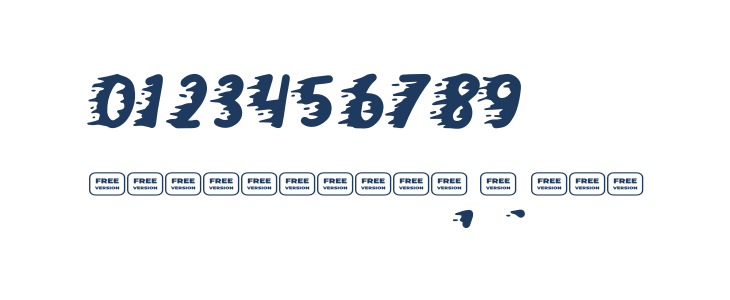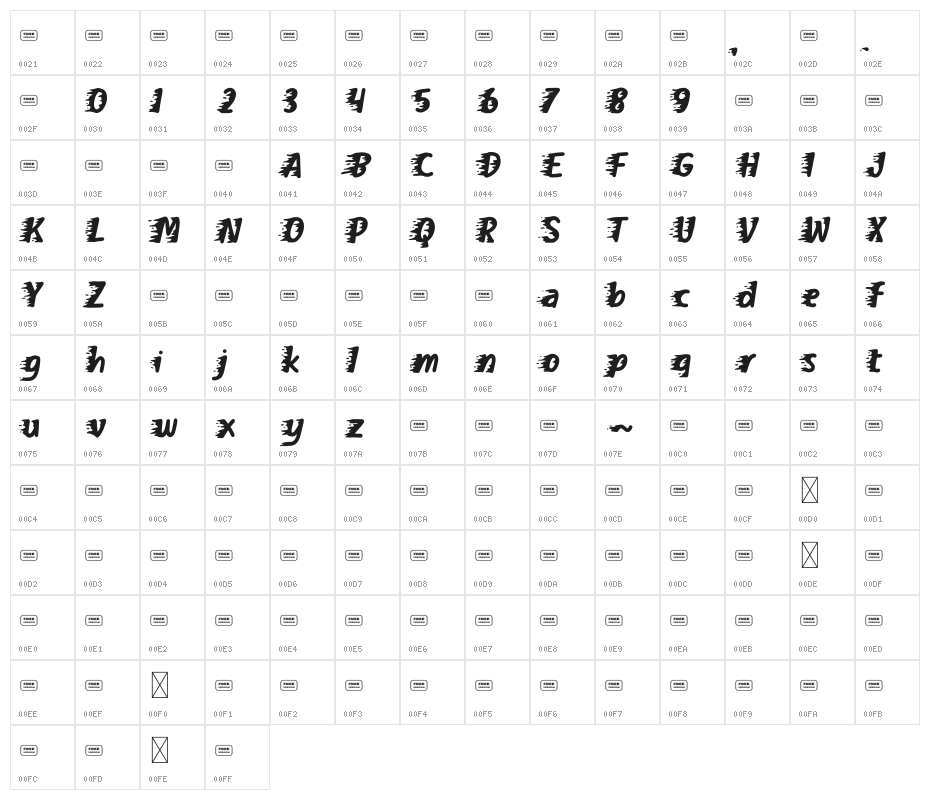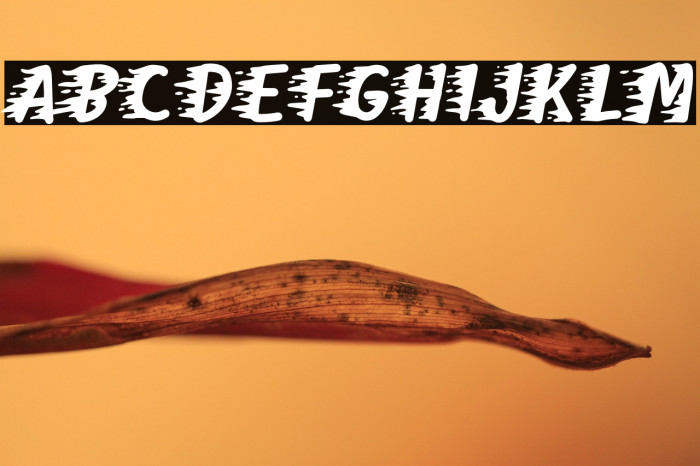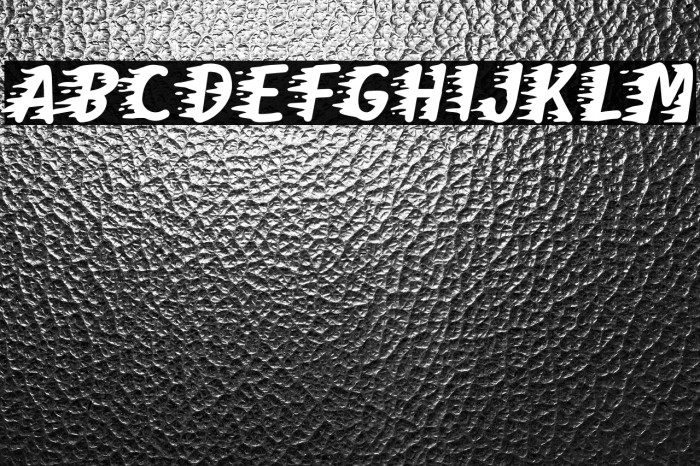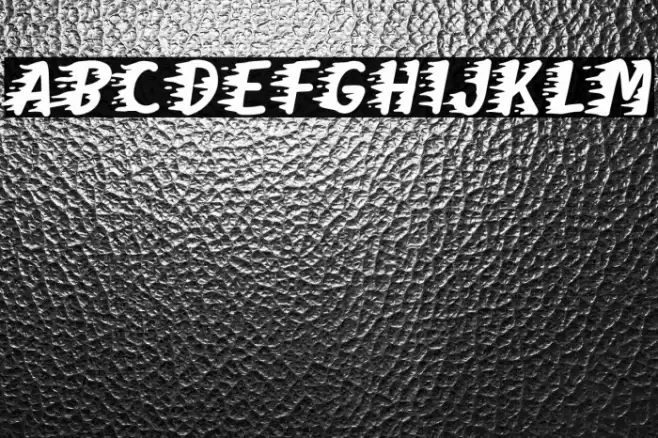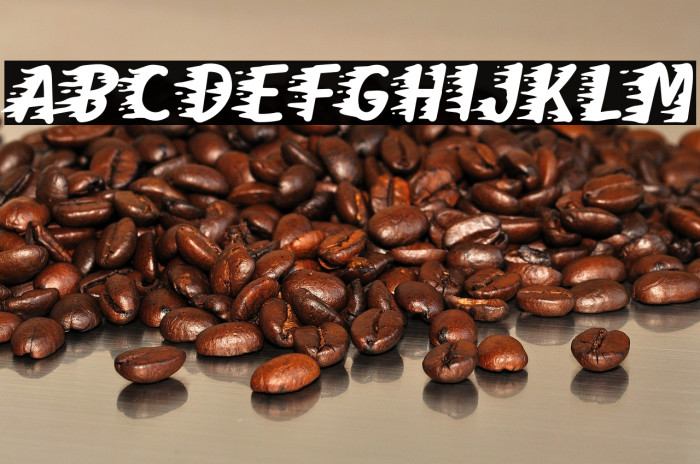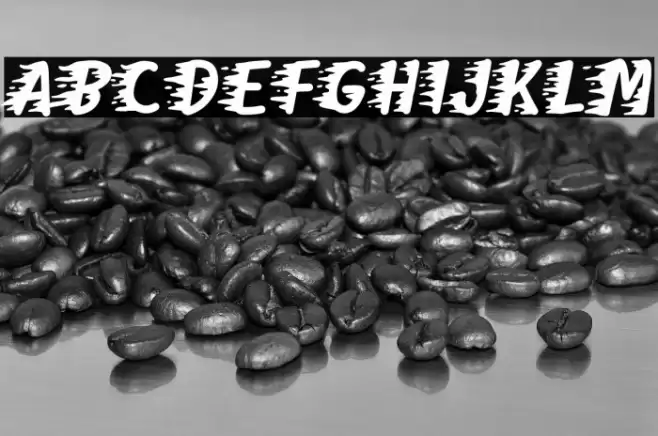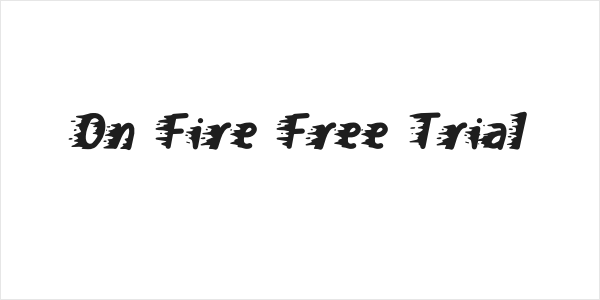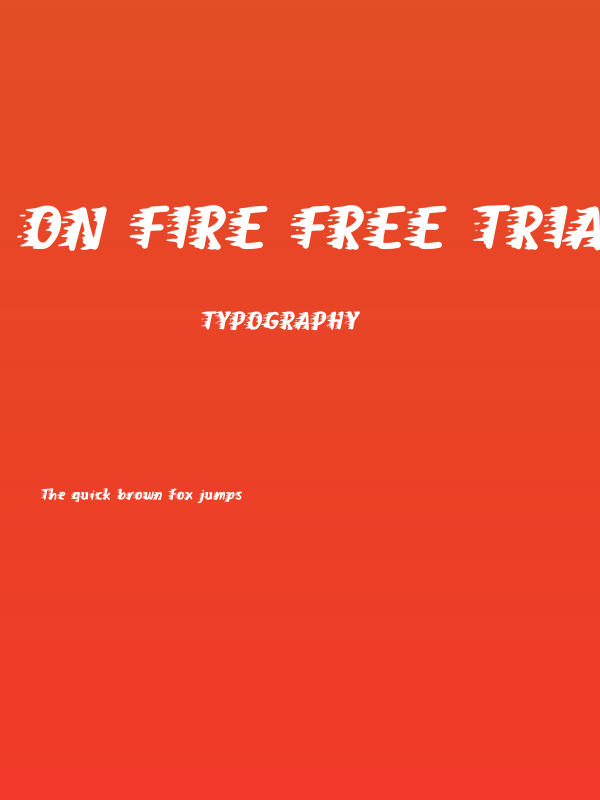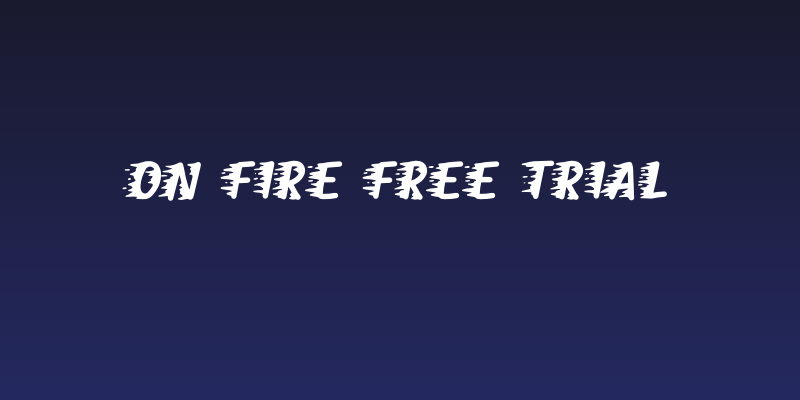
On Fire Free Trial Font
On Fire Free Trial Description
This font features a dynamic and energetic style, with letters that appear to be engulfed in flames or moving at high speed. The characters have a bold, impactful presence, with jagged edges and a sense of motion that suggests urgency or excitement. The uppercase and lowercase letters maintain a consistent theme, with numbers and special characters following the same fiery motif. This font is designed to grab attention and convey a sense of action or intensity.
| Proposed Projects | Ideal for projects requiring a sense of urgency or excitement, such as event posters, sports team branding, or action-themed media. |